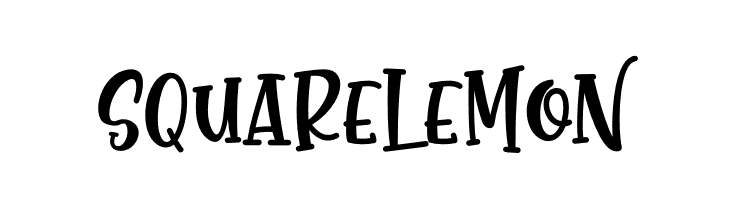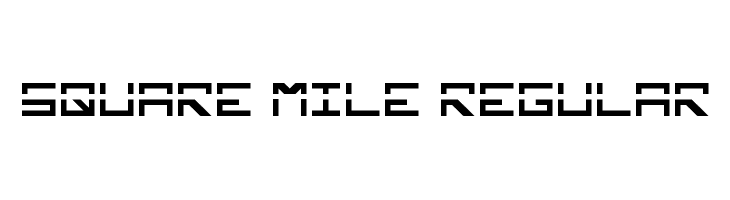
A bold, playful font with rounded, hand-drawn characters.
A bold, geometric font with a blocky, angular design.
A bold, geometric font with square, block-like shapes and a modern industrial feel.
A bold, brush-style font with dynamic, textured strokes.
A bold, chalk-textured font with a hand-drawn, informal style.
A bold, geometric font with a blocky, pixelated style.
A bold, geometric font with square and circular elements, ideal for modern designs.